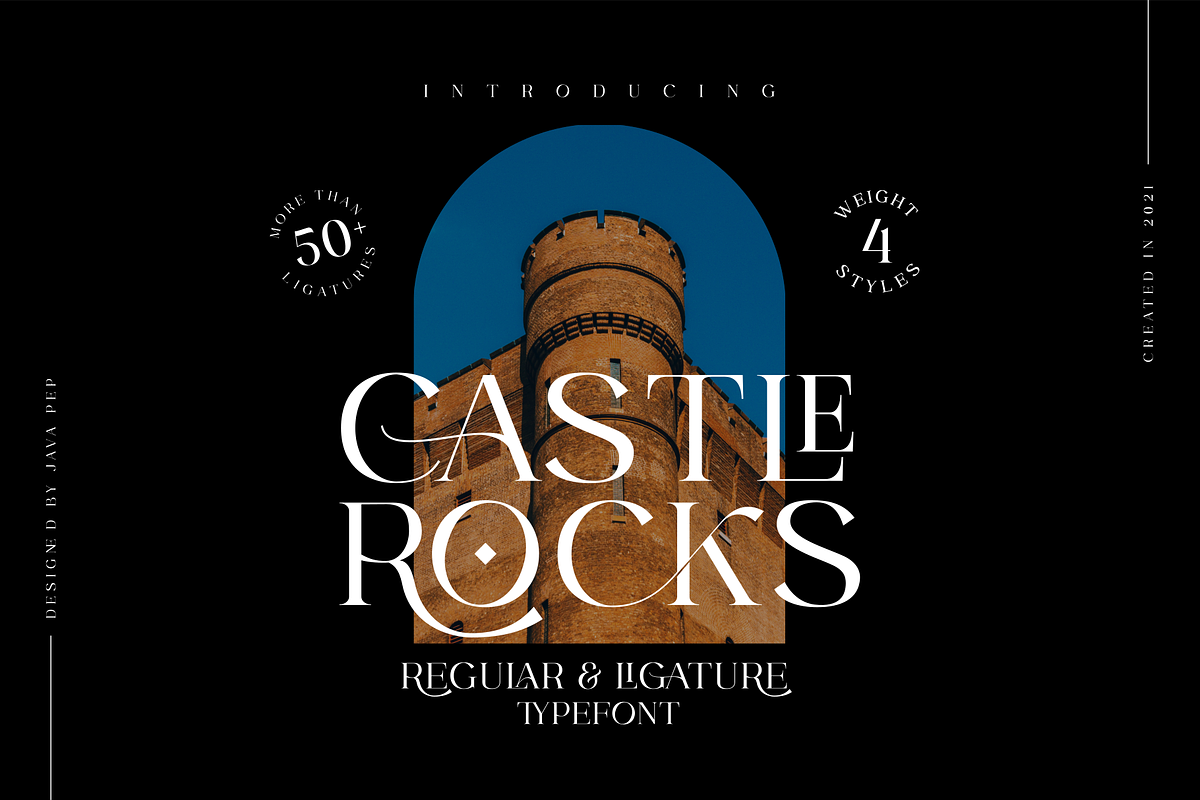
CASTLE ROCKS DUO - Ligature Font Free Download
CASTLE ROCKS DUO – Ligature Font Free Download is an elegant serif typeface designed by JavaPep. This font family features over 50 ligatures and includes a full set of uppercase and lowercase letters, making it ideal for titles, headlines, logotypes, personal branding, invitations, quotes, magazines, and more.
The package includes two main styles:
• CASTLE ROCKS: A ligature font available in Regular, Italic, Bold, and Bold Italic weights.
• CASTLE ROCKS DUO: A regular font without ligatures, also offered in Regular, Italic, Bold, and Bold Italic weights.
Both fonts support multilingual characters and are PUA encoded, ensuring compatibility across various platforms and applications.